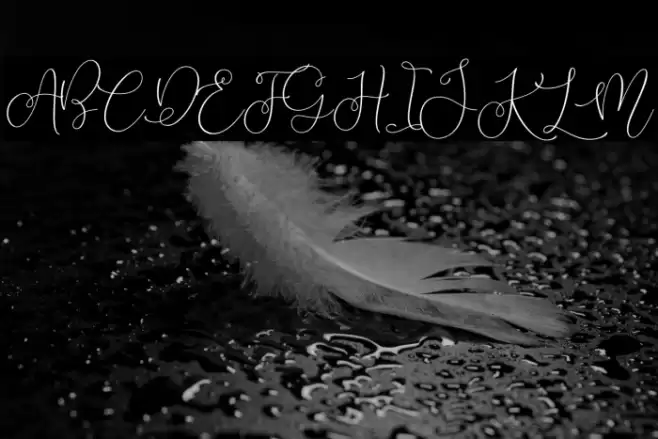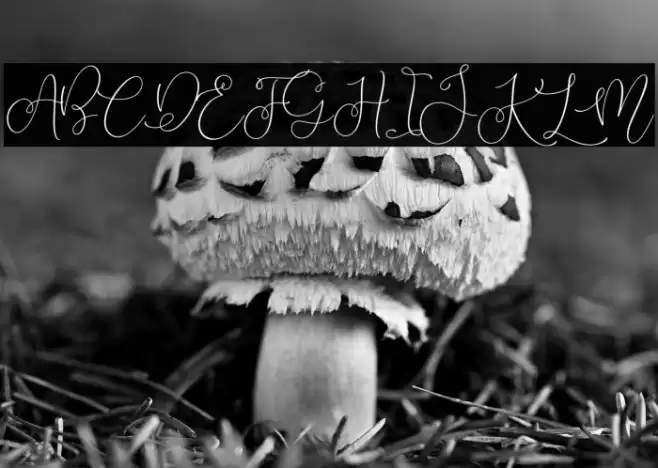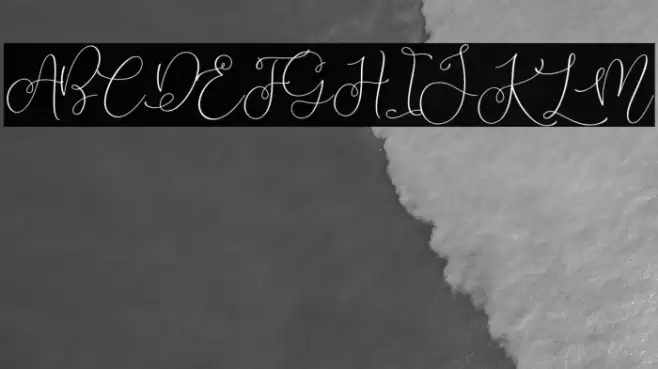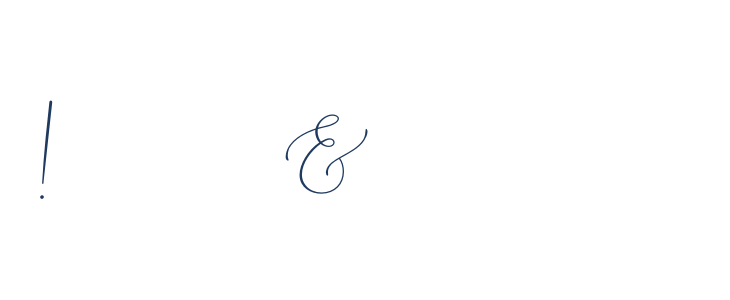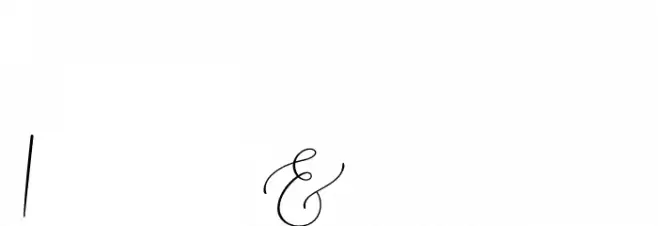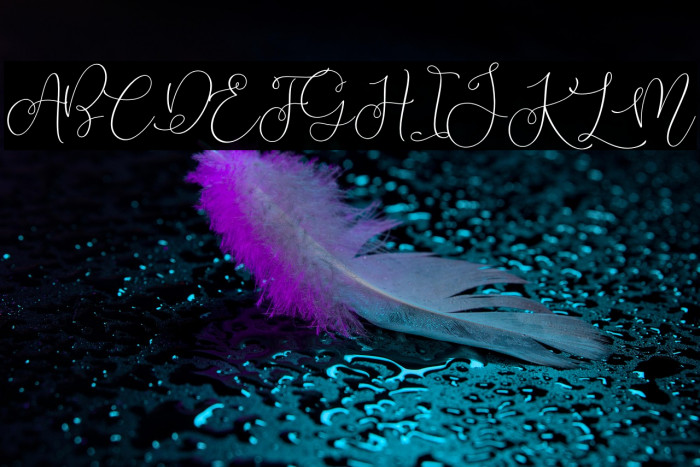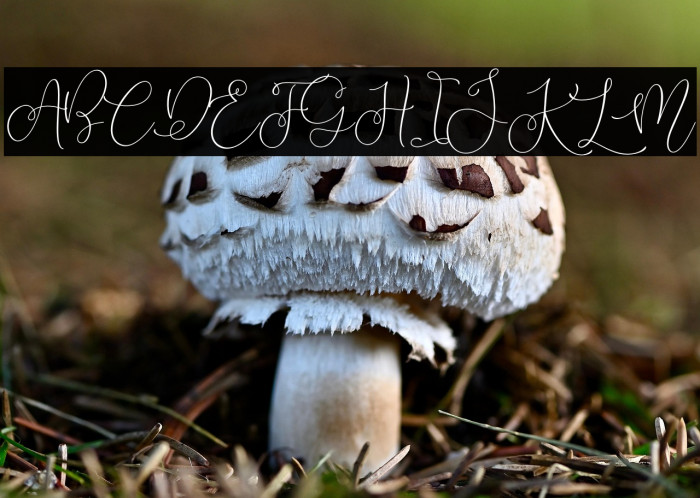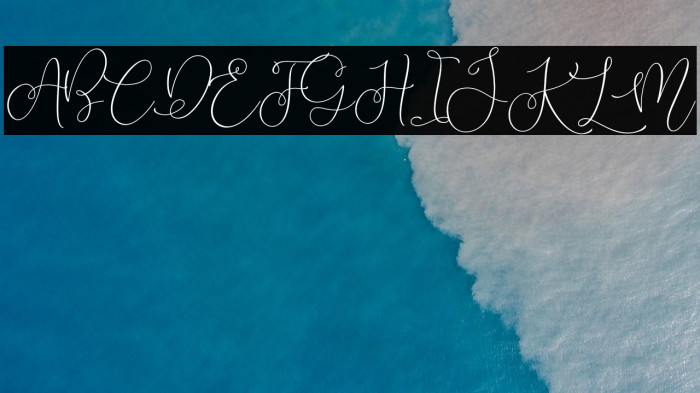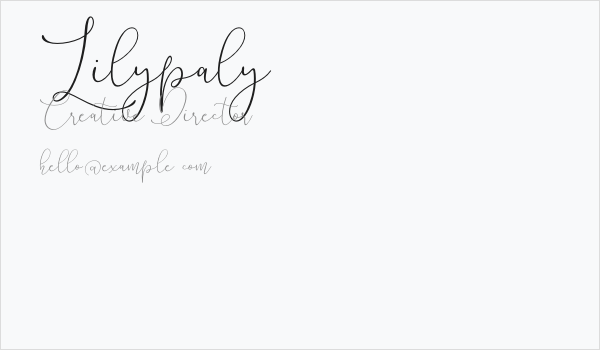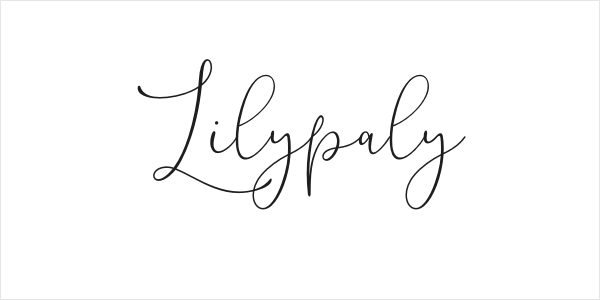
Lilypaly Font
Lilypaly Description
This elegant script font features a flowing, cursive style with delicate loops and swashes. The uppercase letters are characterized by their intricate, decorative flourishes, while the lowercase letters maintain a more consistent, yet equally graceful appearance. The font's thin lines and high contrast between thick and thin strokes give it a sophisticated and artistic feel. The numerals and special characters are designed to complement the overall aesthetic, making it suitable for creative and formal applications.
An elegant, flowing script font with decorative flourishes and high contrast from Uncategorized fonts.
- Font: Lilypaly
- Proposed Projects: Ideal for wedding invitations, greeting cards, branding, and elegant logo designs.
- Overall Style: Elegant, Artistic
- Use Case: Logos, Invitations, Decorative text
Lilypaly UPPERCASE
Lilypaly LOWERCASE
Lilypaly OTHER CHARS